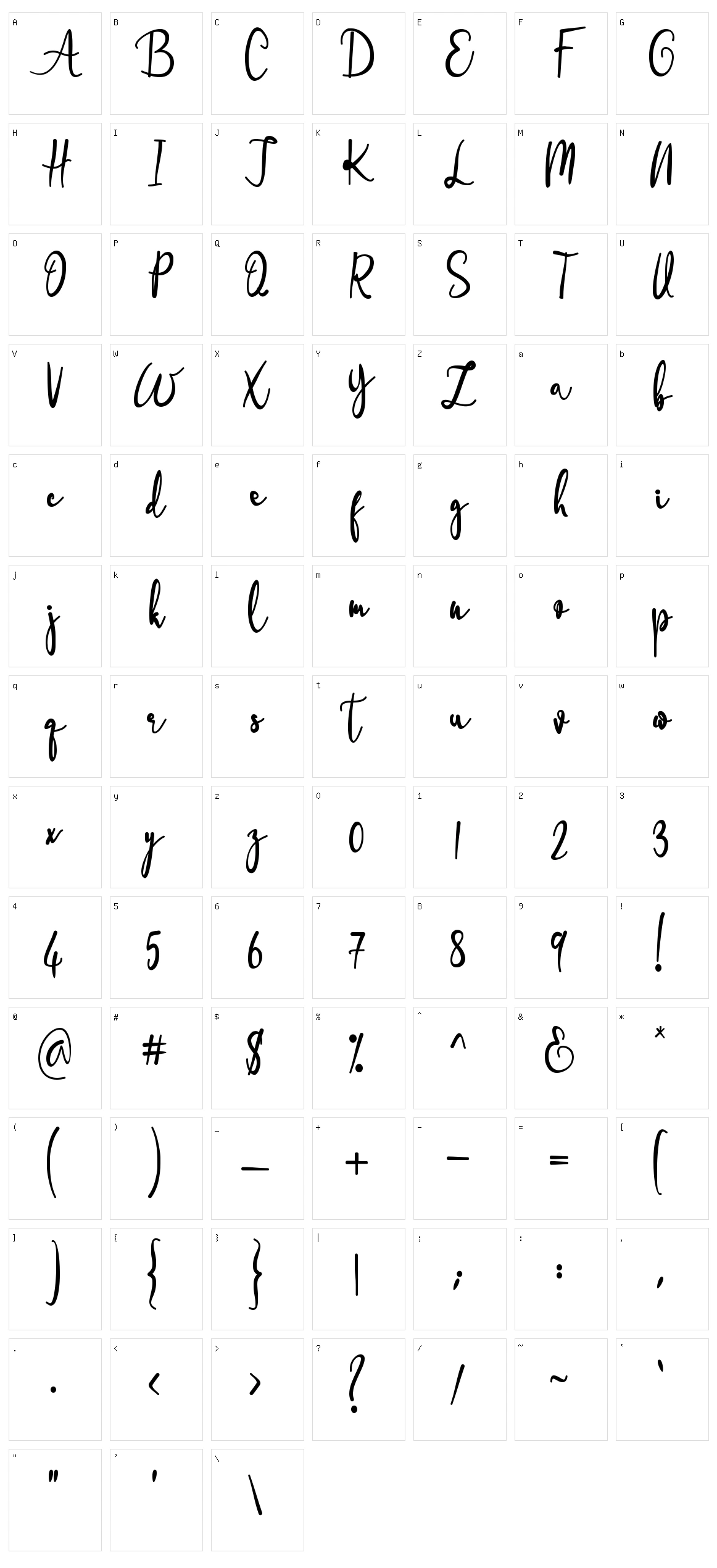
The free font Onlyone is carefully designed by Letterara, showcasing a thoughtful balance of creativity and usability and falls under the Script font style. When you download the ZIP file, it contains only 306.25 KB of font files, making it lightweight and quick to download. Please review the license details below to understand permitted usage and distribution rights. If license information is not available, we recommend using this font for personal projects only or contacting the author directly for commercial usage permissions.